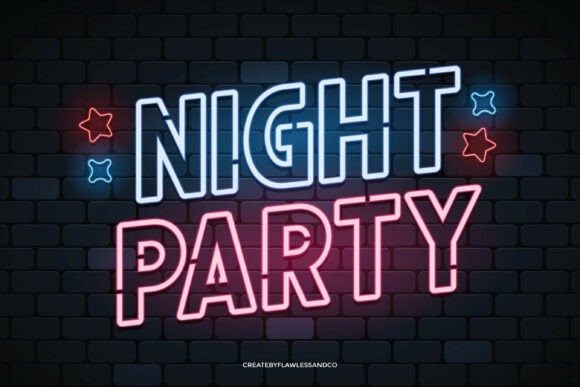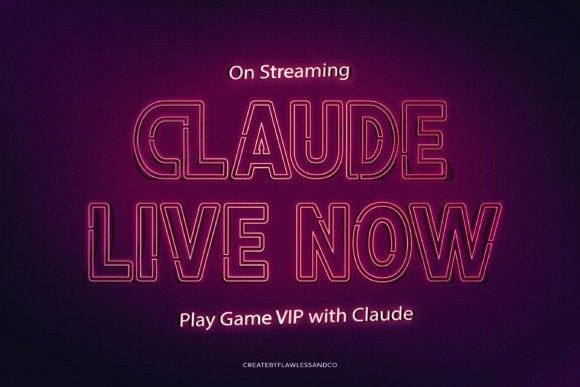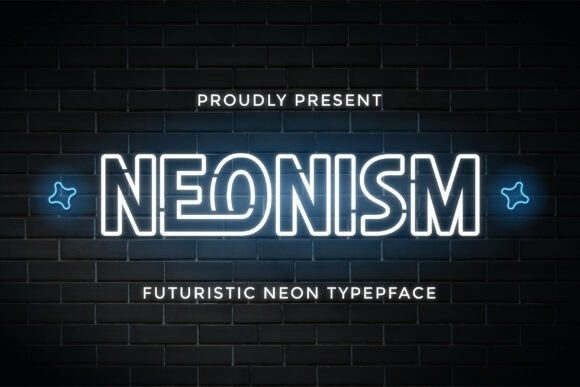
Neonism Font
Neonism Font a bold futuristic neon font that brings the vibrant energy of glowing lights straight into your designs. Inspired by cyberpunk aesthetics and retro-futuristic signage, Neonism combines clean geometry with an electrifying glow effect—perfect for creating visuals that feel modern, sleek, and full of life. Whether you’re designing for tech brands, digital interfaces, nightlife promotions, or gaming visuals.